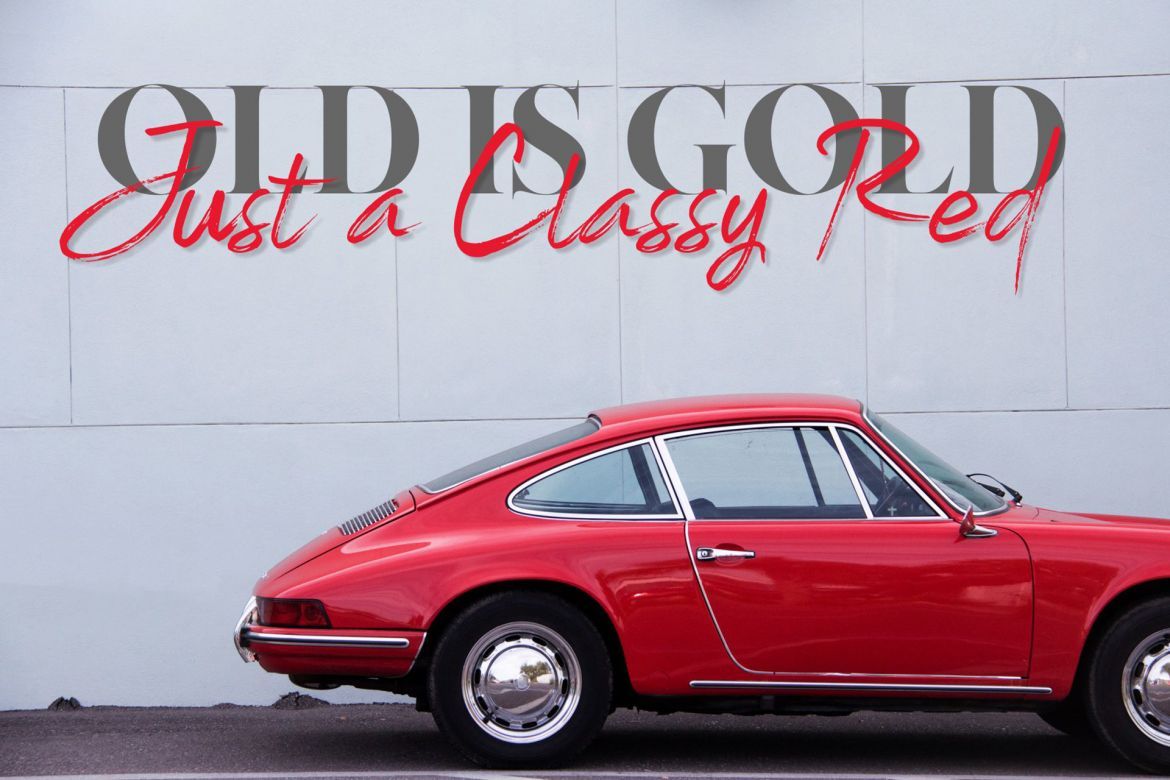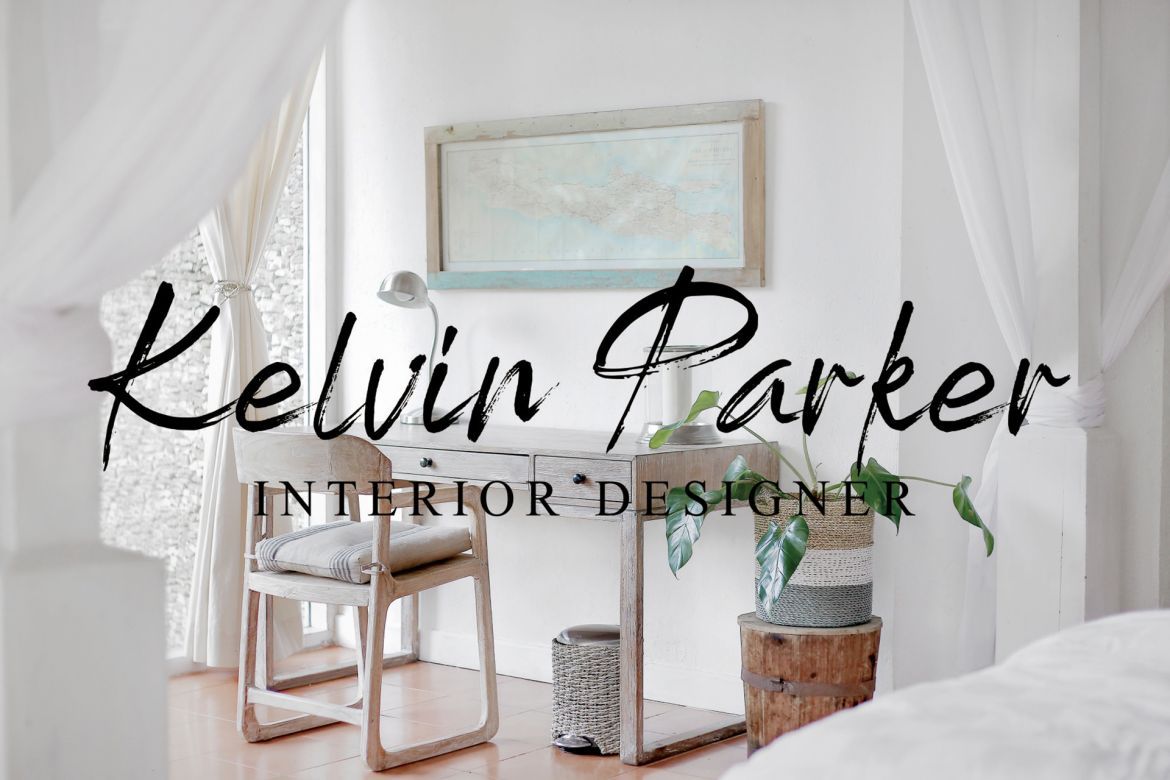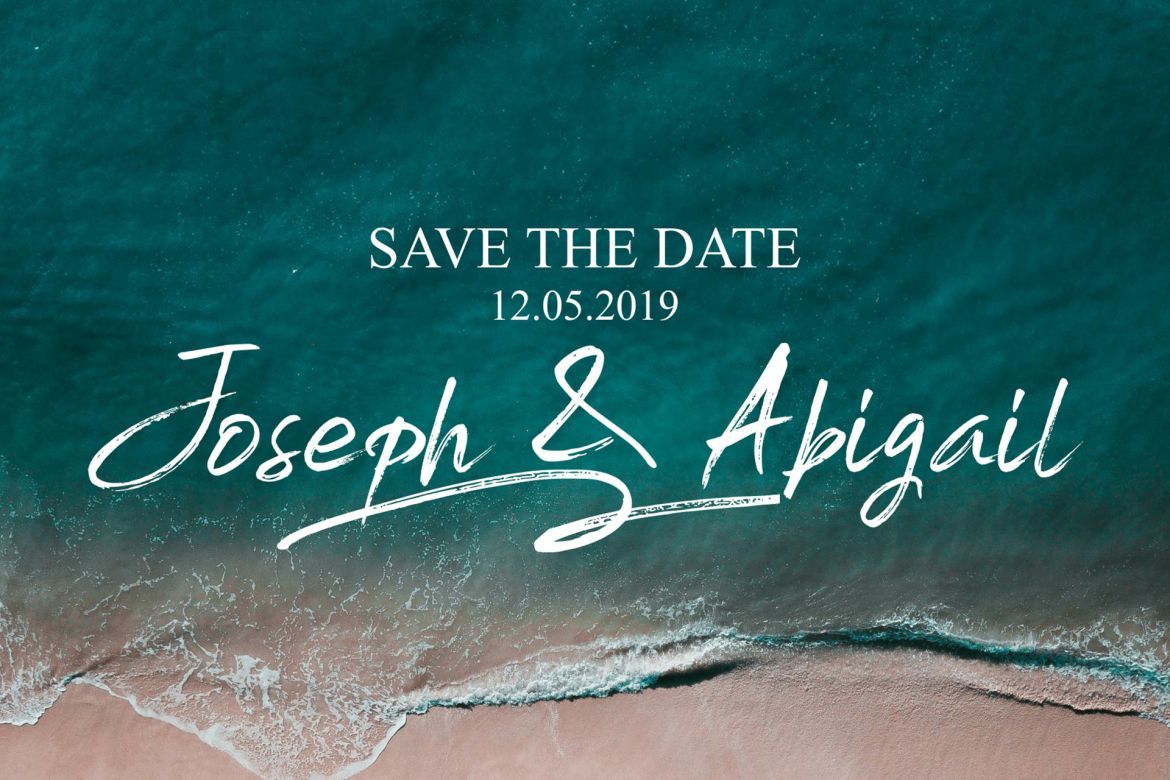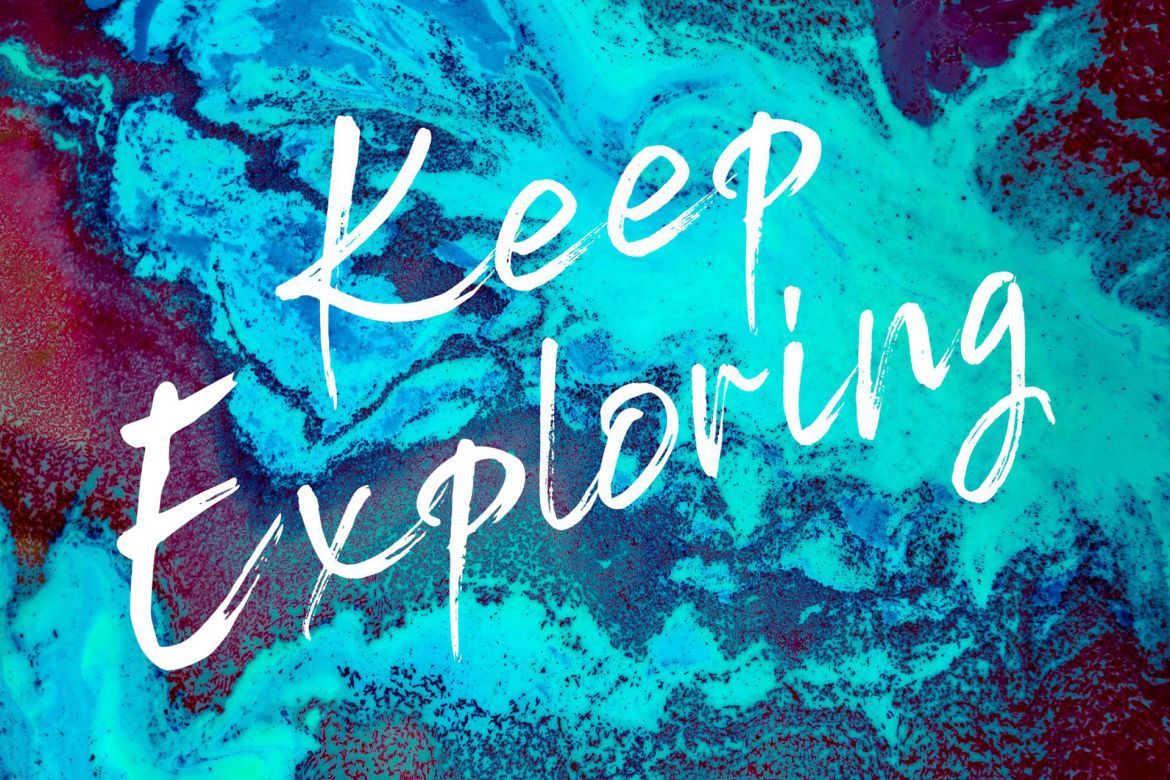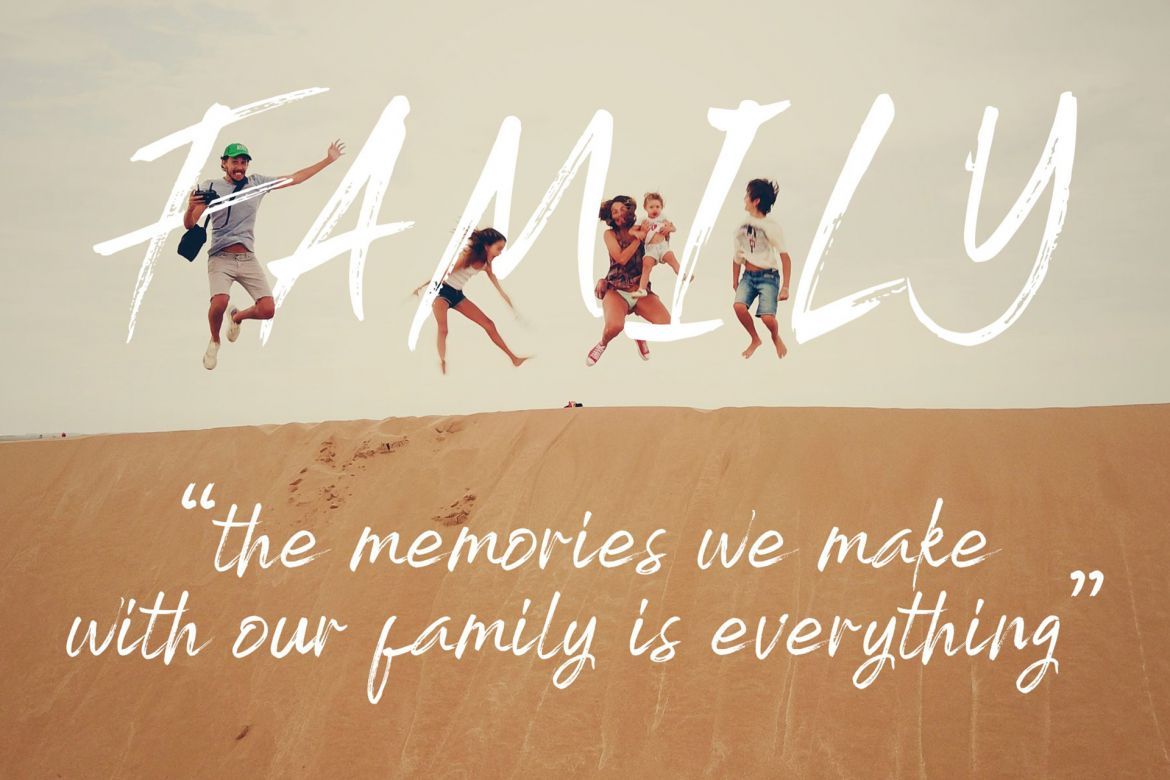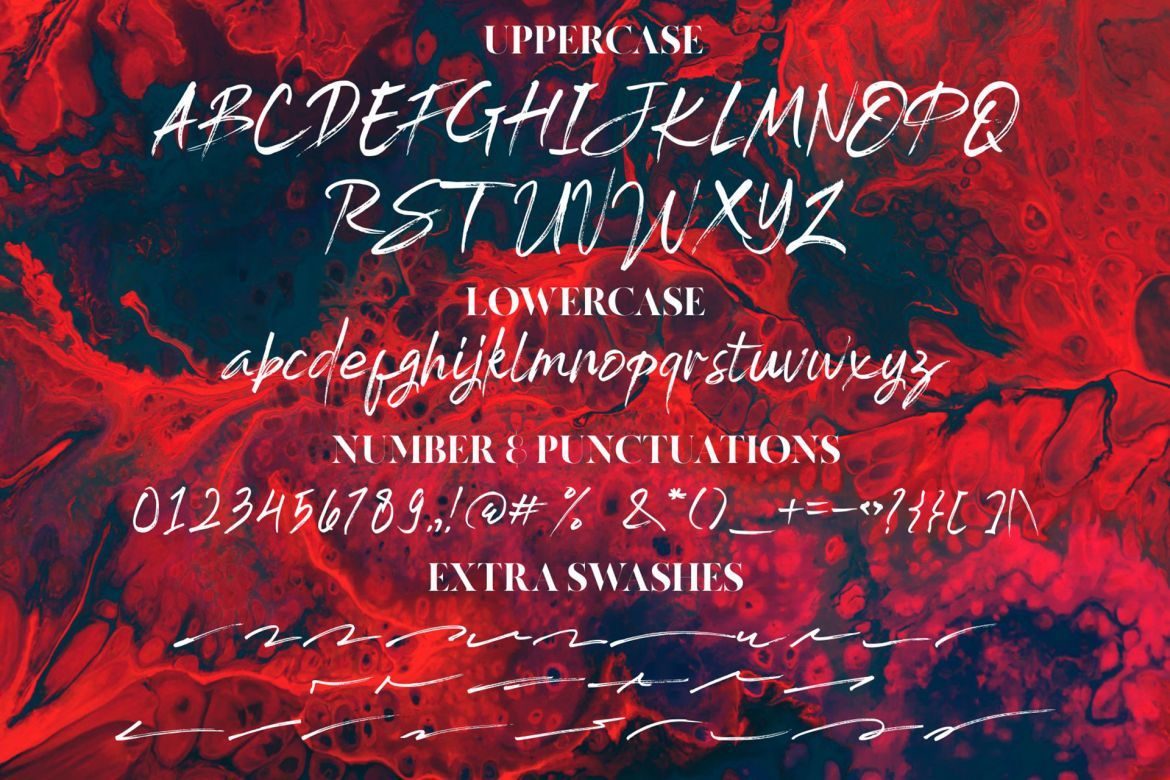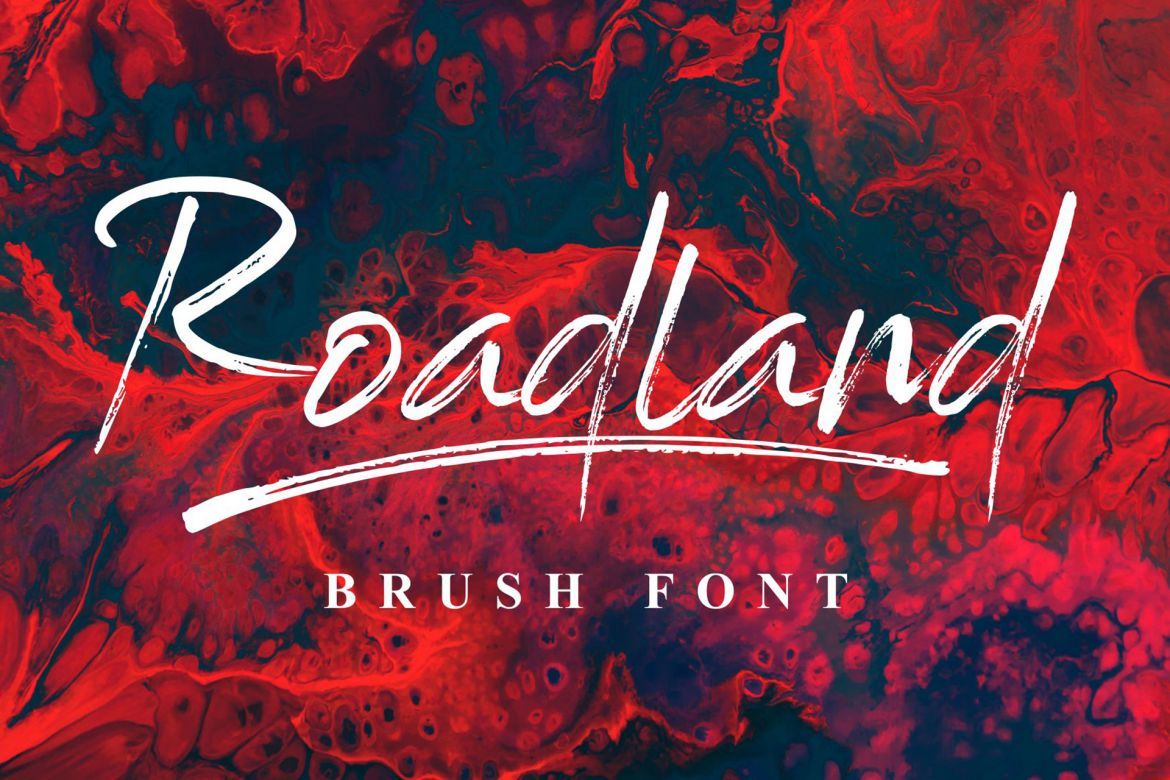
Roadland Brush Font
Introducing 'Roadland' is an original textured brush font suitable perfectly for invitations, brand projects, logos, greeting cards, product packaging, posters blogs, everything including personal charm, etc.
• textured brush